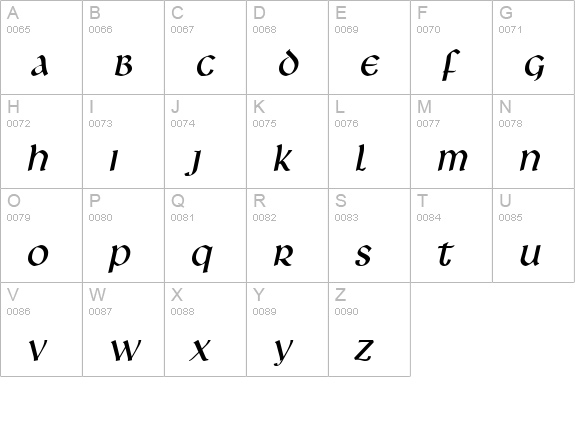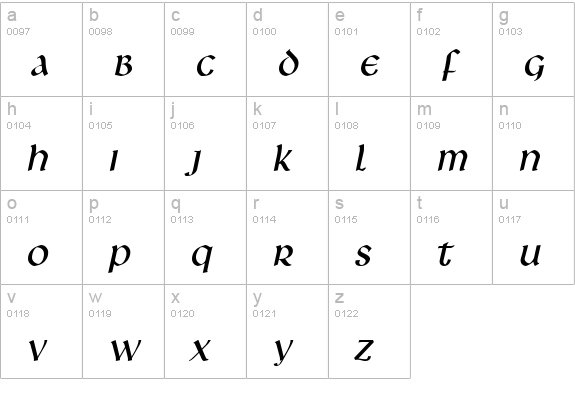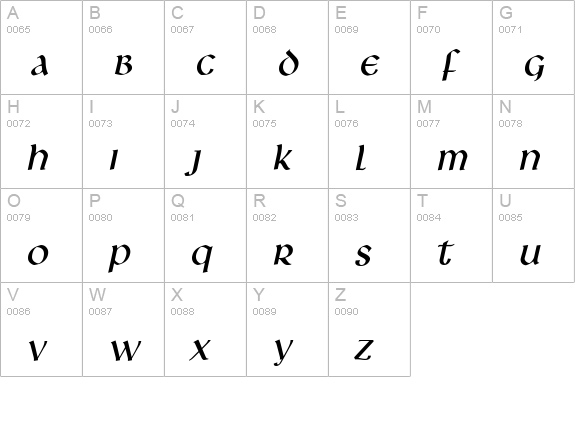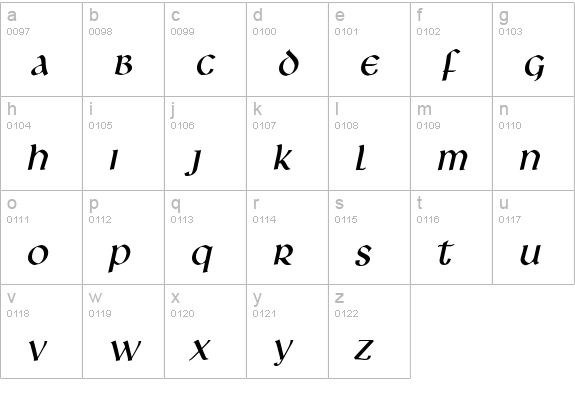
Leo Italic is a distinctive, italic variant in the Leo typeface family \xE2\x80\x94 well suited to design and typography projects.
Leo Italic font is a stunning and elegant typeface that exudes sophistication and grace. Its sleek and slender letterforms are beautifully slanted, adding a touch of dynamism to any design project. With its effortless curves and delicate strokes, Leo Italic font is perfect for adding a touch of refinement to logos, branding, invitations, and more. What sets Leo Italic font apart is not just its exquisite design, but also the fact that it is freely available to download at FontsMarket.com. This means that designers, creatives, and typophiles alike can enjoy the beauty and versatility of Leo Italic font without any cost. The accessibility of this font makes it an excellent choice for those who are looking for a high-quality typeface without breaking the bank. Whether you're working on a personal project or a professional design, Leo Italic font is sure to elevate your work to new heights. Its clean and legible letterforms ensure readability while adding a touch of elegance and sophistication. The versatility of Leo Italic font is also evident in its compatibility with various design software and applications, allowing you to seamlessly incorporate it into your creative workflow. Experience the beauty and freedom of Leo Italic font by downloading it for free at FontsMarket.com. Explore the possibilities and let your creativity soar with this exquisite typeface. With Leo Italic font, you have the power to transform your designs and captivate your audience with its timeless charm. Don't miss out on this incredible opportunity to enhance your work with a font that is both visually striking and freely available. Start creating today with Leo Italic font and see the difference it can make in your designs.